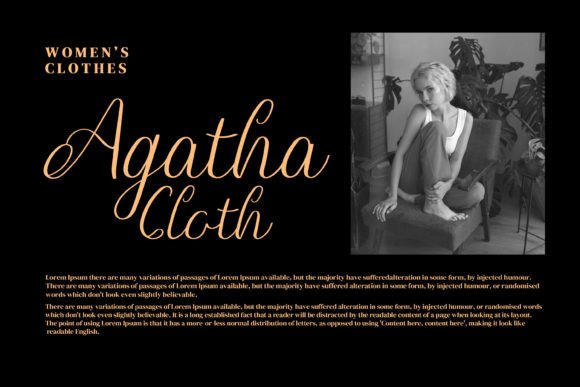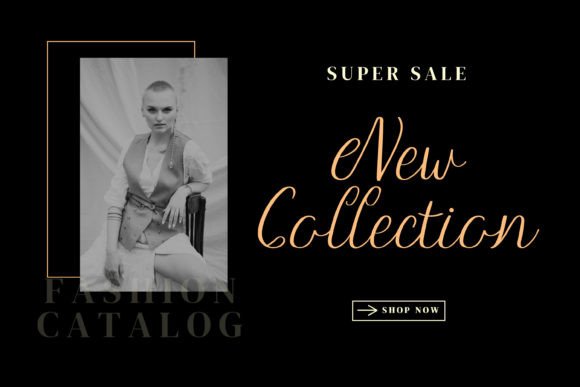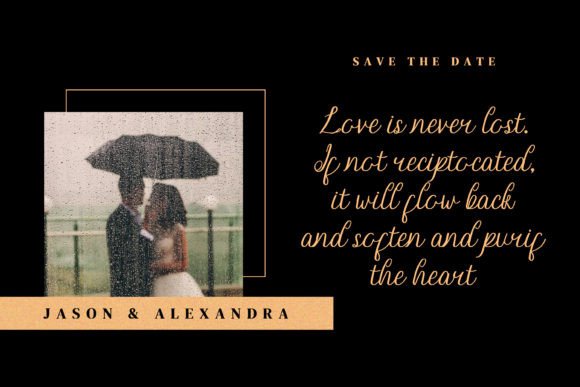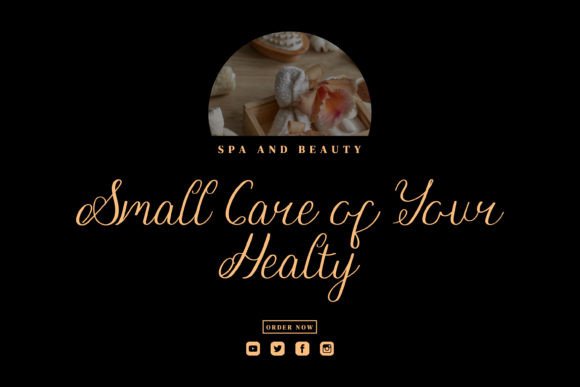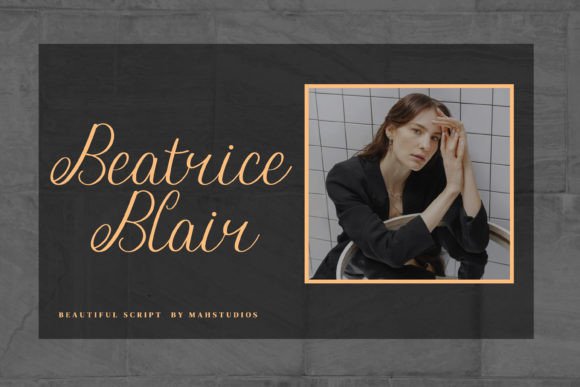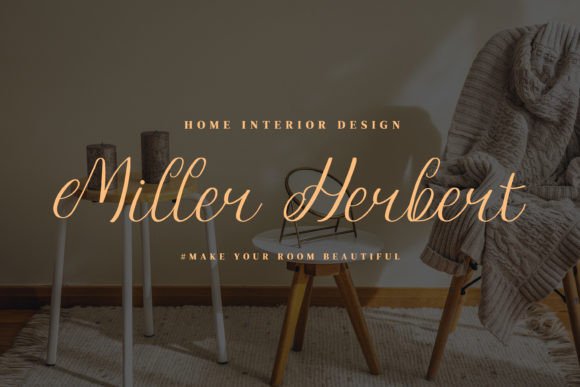
Introducing the Elegance of Brugundy Font: A Deluxe Script Font for Luxury Branding and Editorial Design
In the world of typography, few fonts manage to convey the essence of luxury and sophistication as effortlessly as the Brugundy Font. This truly deluxe script font has been carefully crafted to embody elegance and refinement, making it the perfect choice for high-end branding and editorial design projects. With its intricate curves and flourishing strokes, Brugundy Font exudes a sense of glamour and opulence that is sure to leave a lasting impression.
The Art of Elegance: Design Features of Brugundy Font
Brugundy Font is a masterclass in typographic design, boasting a range of features that set it apart from more mundane fonts. Its intricate curves and flourishing strokes are a hallmark of luxury typography, adding a touch of sophistication and refinement to any project. Whether you’re working on a high-end branding campaign or an editorial design project, Brugundy Font is the perfect choice for designers who demand the best.
One of the standout features of Brugundy Font is its PUA (Private Use Area) encoding. This means that users can access all of the amazing glyphs and ligatures with ease, giving them complete creative control over their typography. Whether you’re looking to add a touch of whimsy or a dash of drama to your design, Brugundy Font’s extensive character set has got you covered.
Perfect for High-End Branding and Editorial Design
So why choose Brugundy Font for your high-end branding or editorial design project? The answer lies in its versatility and elegance. This font is perfectly suited to a wide range of applications, from luxury fashion brands to high-end editorial publications. Its sophisticated and refined aesthetic makes it an excellent choice for designers who want to create a lasting impression.
Whether you’re working on a brand identity project, a magazine or editorial design, or even a packaging design project, Brugundy Font is the perfect choice. Its elegant and refined aesthetic will add a touch of luxury to any project, helping you to stand out from the crowd and establish a strong visual identity.
What Sets Brugundy Font Apart?
So what sets Brugundy Font apart from other script fonts on the market? The answer lies in its unique blend of elegance and sophistication. This font has been carefully crafted to provide a truly deluxe typographic experience, with intricate curves and flourishing strokes that add a touch of luxury to any project.
In addition to its stunning design features, Brugundy Font is also incredibly versatile. Its PUA encoding makes it easy to use and customize, giving designers complete creative control over their typography. Whether you’re working on a large-scale branding project or a small-scale design project, Brugundy Font is the perfect choice.
Why Designers and Crafters Love Brugundy Font
Designers and crafters love Brugundy Font for many reasons. Its elegant and refined aesthetic makes it perfect for high-end branding and editorial design projects, while its versatility and customization options make it easy to use and adapt. Here are just a few reasons why designers and crafters can’t get enough of Brugundy Font:
- Elegance and sophistication: Brugundy Font is the perfect choice for designers who want to add a touch of luxury to their projects.
- Versatility: Brugundy Font is suitable for a wide range of applications, from branding and editorial design to packaging and more.
- Customization options: Brugundy Font’s PUA encoding makes it easy to customize and adapt to any project.
- Beautiful design: Brugundy Font’s intricate curves and flourishing strokes make it a stunning addition to any project.
| Font Name | Brugundy Font |
| Author | mahstudios |
In conclusion, Brugundy Font is a truly deluxe script font that is perfect for high-end branding and editorial design projects. Its elegant and refined aesthetic, combined with its versatility and customization options, make it a must-have for designers who demand the best. Whether you’re working on a luxury fashion brand or a high-end editorial publication, Brugundy Font is the ultimate choice for adding a touch of glamour and sophistication to your project.